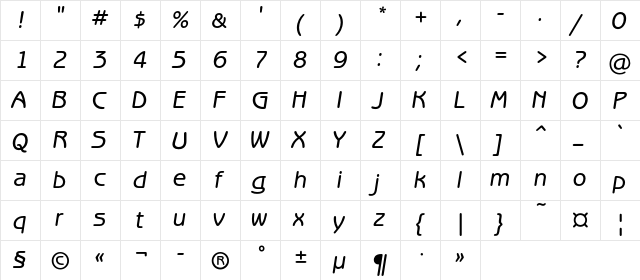
BenguiatGothic MediumC Italic Font Preview
BenguiatGothic MediumC Italic
Design Context for BenguiatGothic MediumC Typeface
BenguiatGothic MediumC takes a clean, functional approach — its unadorned letterforms prioritise legibility and work reliably across screen and print environments. Its italic angle brings a sense of urgency and motion to the letterforms.
Font Pairing: Works well alongside a characterful serif or display font that can carry the expressive load while BenguiatGothic MediumC handles the functional copy.
Pro Tip: Pair BenguiatGothic MediumC with a display or serif font for headlines — its neutral character makes it an excellent supporting player in complex typographic systems.